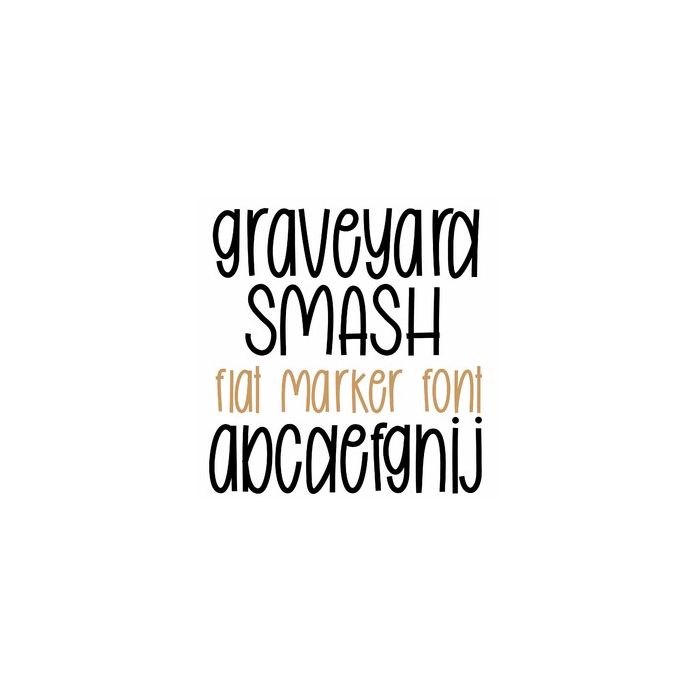
Graveyard Smash is a fun Halloween font in a thick flat marker handwriting style. Great for fall holiday crafts, cards, labels, decorations, personalization projects, and more. Includes alphabet, numbers, and punctuation.